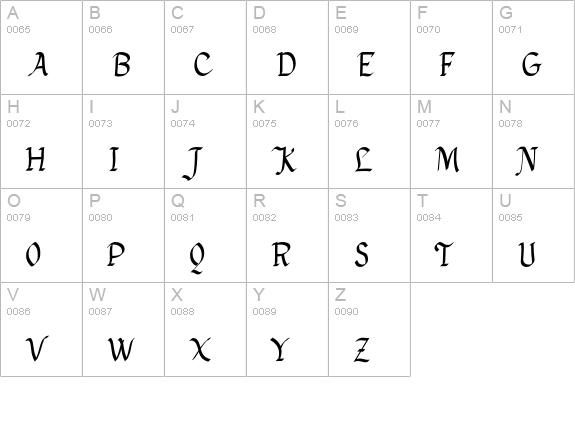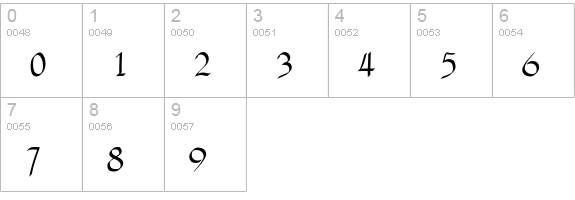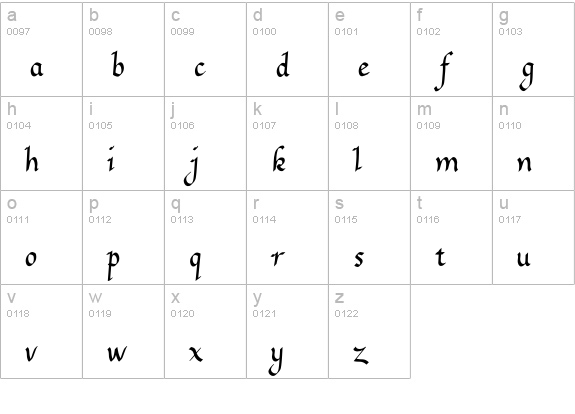
FaustusBold Font Details
FaustusBold font is a stunning display typeface that exudes elegance and sophistication. With its bold and striking design, this font is perfect for making a statement in headings, titles, and logos. The sharp lines and intricate details of FaustusBold make it stand out from the crowd and leave a lasting impression on any design project. What's even better is that FaustusBold is completely free to download at FontsMarket.com. This means you can add this eye-catching font to your collection without any cost. Whether you're a designer looking to enhance your projects or a content creator searching for a unique font, FaustusBold is a must-have addition to your toolkit. Download it today and elevate your designs with this exceptional typeface.